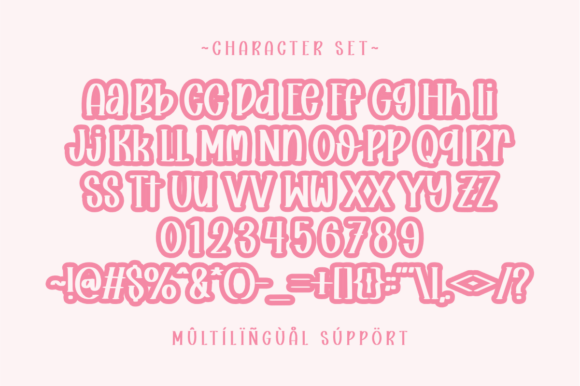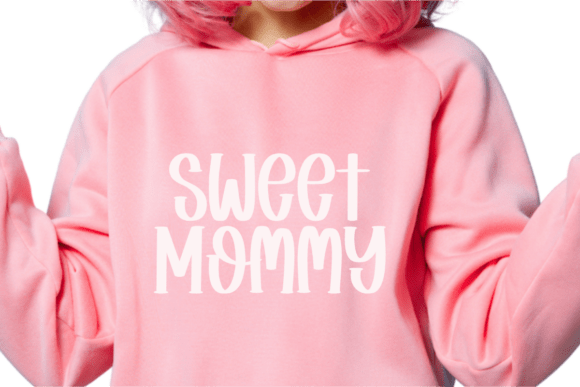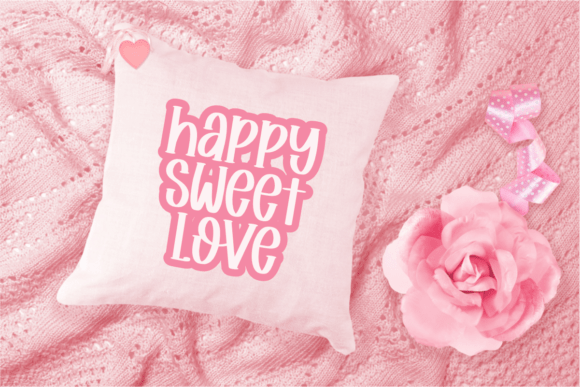
Sweet August Font
Sweet August is a playful, rounded slab‑serif font that radiates cuteness and positivity—perfect for cheerful prints, pastel‑themed crafts, and anything that needs a dash of sweet charm. Inspired by hand‑lettered candy‑shop signage and softened with modern curves, this typeface is built for effortless readability on both digital and physical products.